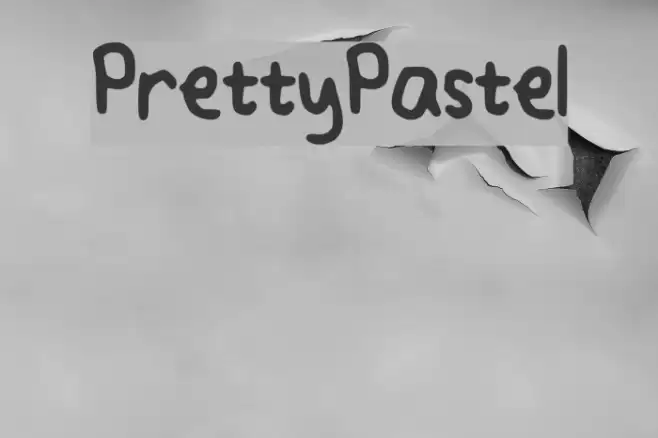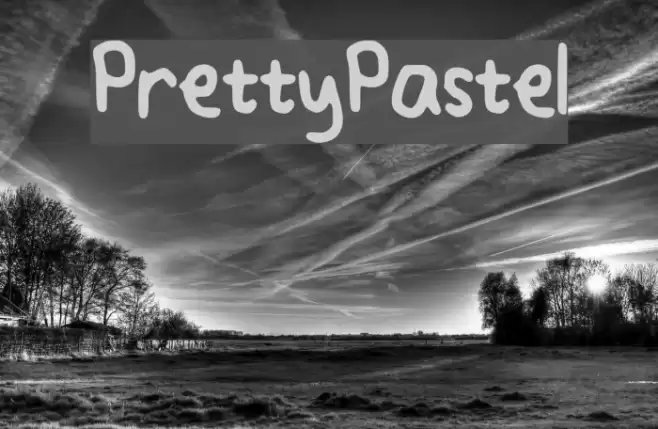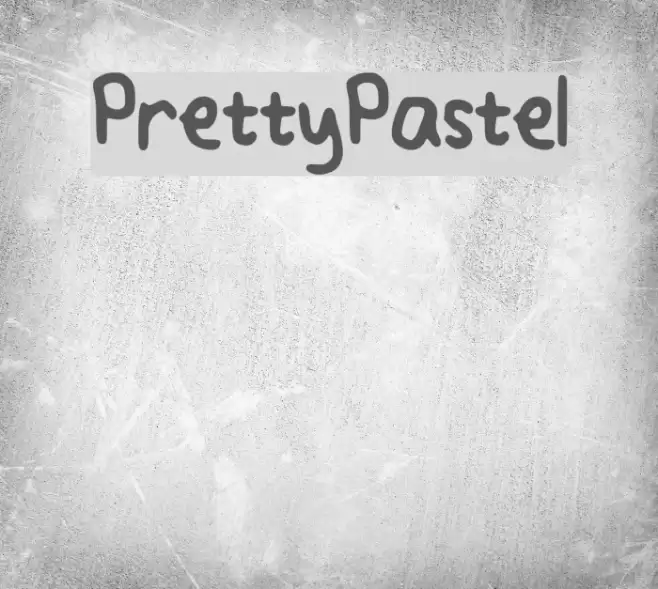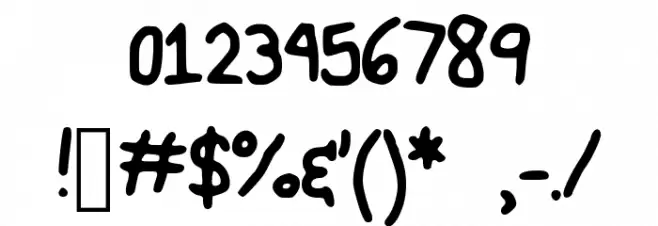
Pretty_Pastel Font
Pretty_Pastel Description
This playful and whimsical font features rounded, hand-drawn characters that exude a friendly and approachable vibe. The letters are slightly irregular, adding to the casual and informal feel. The strokes are consistent in weight, providing a uniform appearance across both uppercase and lowercase letters. The numbers and special characters maintain the same playful style, making them suitable for a variety of creative applications. The overall design is reminiscent of handwriting, making it ideal for projects that require a personal touch.
A playful, hand-drawn font with rounded, friendly characters from Uncategorized fonts.
- Proposed Projects: Ideal for children's books, greeting cards, playful branding, and casual invitations.
- Overall Style: Casual, Playful
- Use Case: Headlines, Logos, Invitations